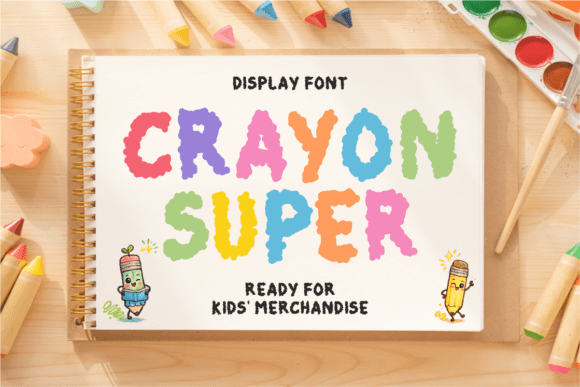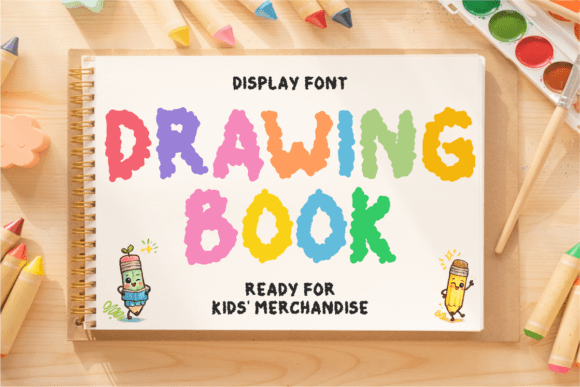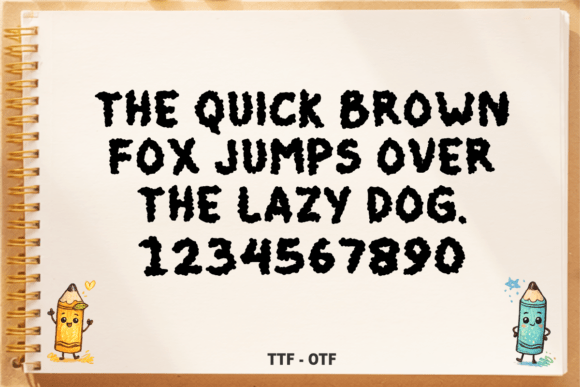
Crayon Pencil Font: Bringing Whimsy to Your Designs
Do you remember the joy of coloring outside the lines, the thrill of discovering a new color palette, or the satisfaction of creating something entirely new with a single crayon stroke? 🖍️ For many of us, those carefree moments of creativity are etched in our memories, and we’re eager to recapture that magic in our work. If you’re a crafter, teacher, or designer looking to add a pinch of whimsy to your projects, Crayon Pencil Font is here to help.
With its thick, chunky shapes and uniquely organic, sketchy edges, Crayon Pencil Font brings a magical and playful touch to your text. Perfect for educational resources, digital brands, or any project that needs a friendly, hand-crafted voice, this font combines the nostalgic look of a wax crayon with the soft texture of a colored pencil. Whether you’re creating for kids or adults, Crayon Pencil Font adds a touch of wonder to your designs.
- Unique Characteristics: Crayon Pencil Font is designed to mimic the look of a child’s crayon drawing, with bold, vibrant lines and a playful, whimsical feel.
Crayon Pencil Font Review
I’ve had the chance to work with the Crayon Pencil Font, and here’s my honest take on it.
- Unique aesthetic: The font has a distinct, nostalgic feel to it, reminiscent of classic crayons.
- Playful vibe: The Crayon Pencil Font is perfect for projects that require a touch of whimsy and fun.
- Good for children’s content: The font’s simplicity and charm make it suitable for kids’ books, educational materials, and more.
- Not ideal for formal or professional content: The font’s casual nature may not be suitable for serious or corporate projects.
- Limited legibility: At smaller font sizes, the Crayon Pencil Font can become difficult to read.
- May not work well in bold or italic styles: The font’s unique design may not translate well when used in bold or italic formats.
The Crayon Pencil Font is a delightful addition to any designer’s toolkit. While it may not be suitable for every project, it’s perfect for those that require a touch of creativity and playfulness. With its unique aesthetic and good legibility, this font is sure to bring a smile to your face.
To get the most out of the Crayon Pencil Font, try the following:
- Combine it with other fonts for a unique look
- Adjust the font size and style to create visual interest
- Use it for titles, headings, or emphasis
The Crayon Pencil Font is perfect for:
- Education and learning materials
- Artistic and creative projects